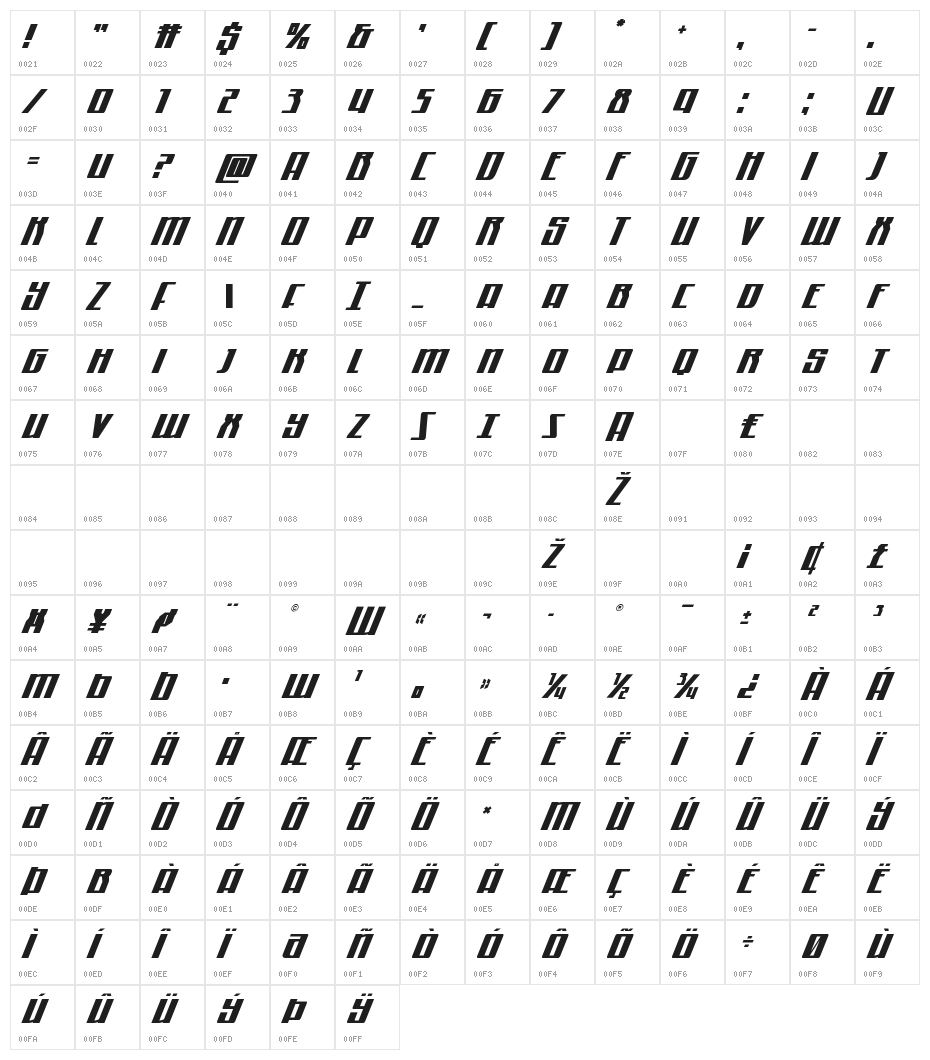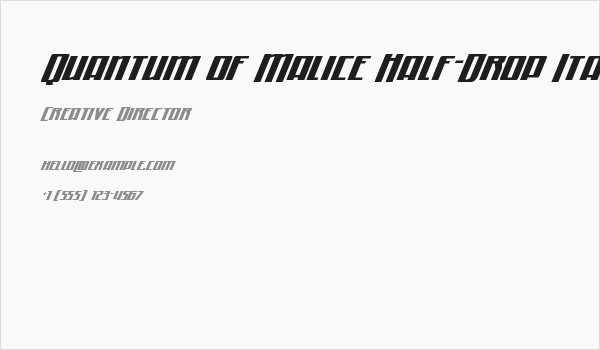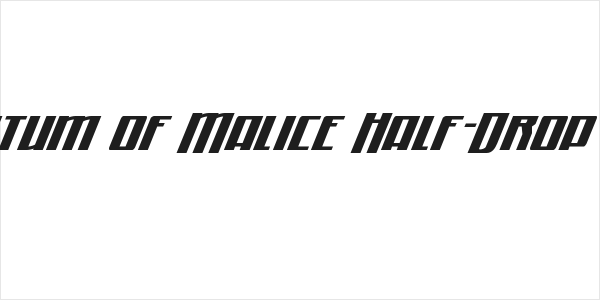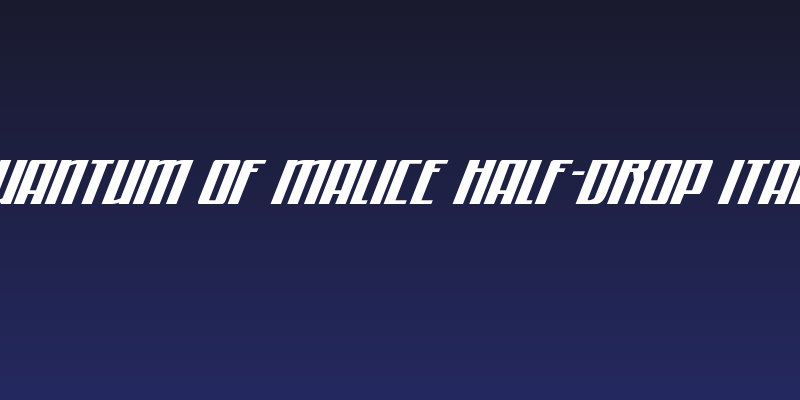
Quantum of Malice Half-Drop Italic Font
Quantum of Malice Half-Drop Italic Description
This font features a bold and dynamic style with a strong italic slant, giving it a sense of motion and energy. The characters are sharply angled with a futuristic and aggressive appearance, making it ideal for attention-grabbing designs. The uppercase and lowercase letters maintain a consistent style, with clean lines and a uniform thickness. The numerals and special characters are designed to match the overall aesthetic, ensuring a cohesive look across all text elements. This font is perfect for projects that require a bold statement and a modern, edgy feel.
| Proposed Projects | Ideal for sports branding, video game titles, movie posters, and dynamic advertising campaigns. |